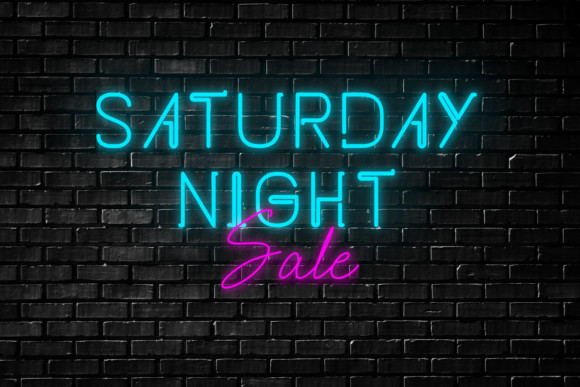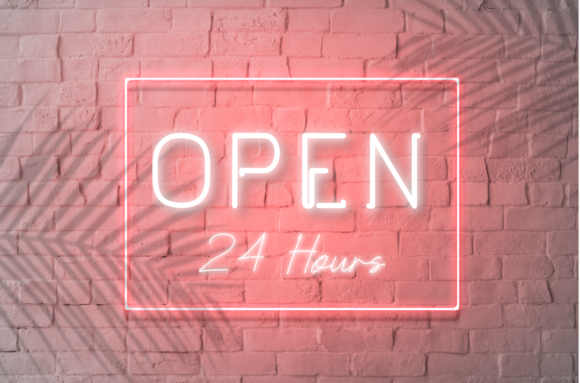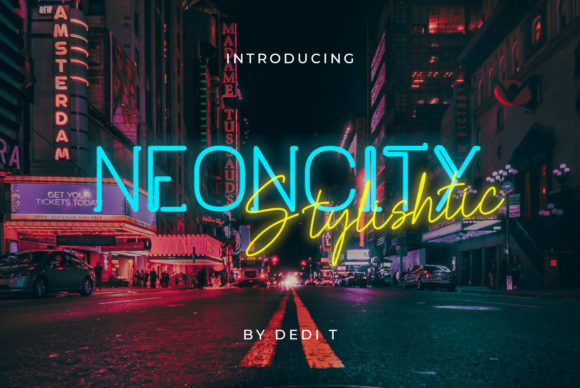
Neoncity Font
Neoncity is a bold and fresh display font with a vintage feel. Inspired by the flashing 80’s, it will add a distinct look to any design project.